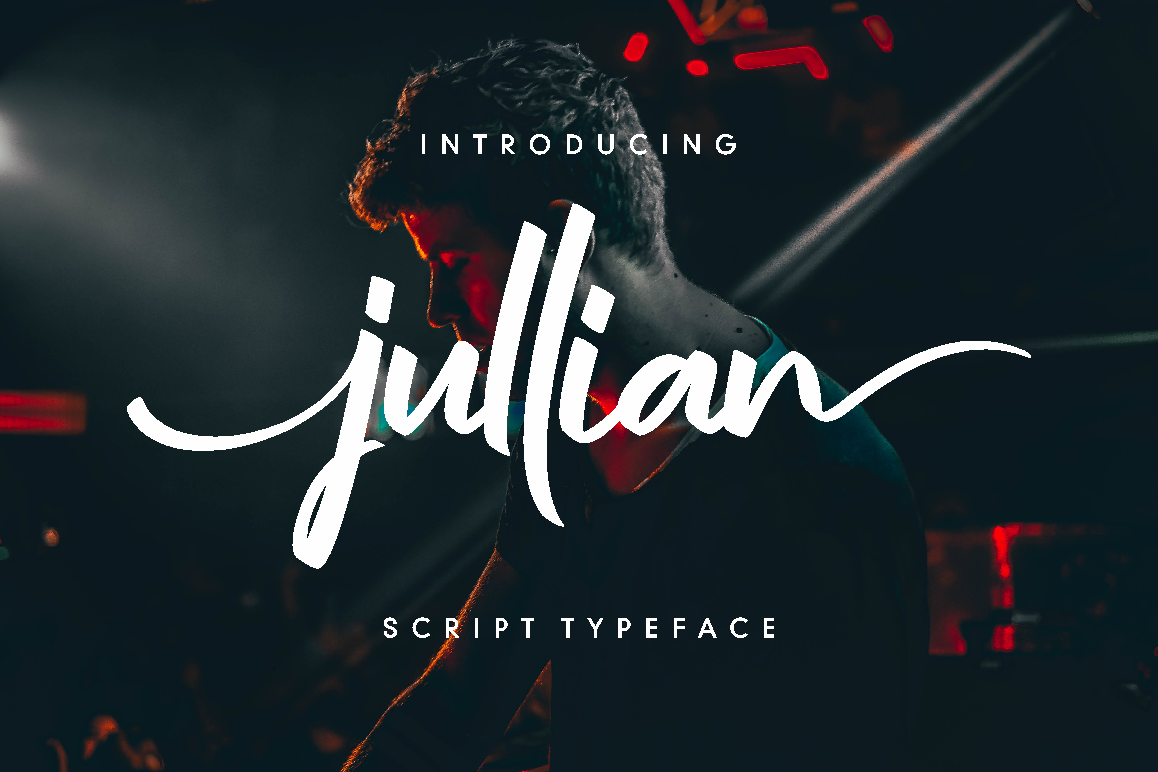
jullian script
Introducing jullian script. a new fresh & modern script with elegant calligraphy, cool characters.
very cool for logotype, name tags, short quotes, product packaging, merchandise, business cards and book covers
.This font is young and elegant. it contains a full set of Uppercase, and lowercase letters, punctuation, numerals, and multilingual support.
- Stylistic Alternate
- Ligature standard